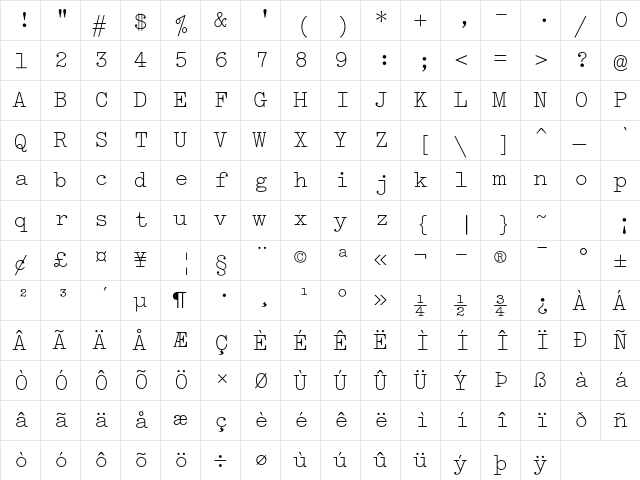
Typewriter Elite MT Std Regular
Design Context for Typewriter Elite MT Std Typeface
Typewriter Elite MT Std brings the precise, column-aligned rhythm of monospaced typography to designs that value technical clarity and systematic order.
Pro Tip: Pair Typewriter Elite MT Std with a proportional sans for UI contexts where code-style labels and regular body copy need to coexist.